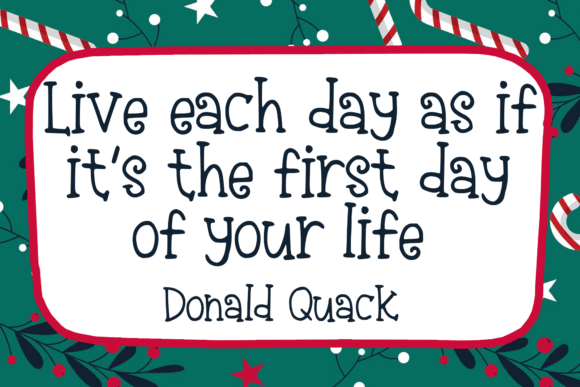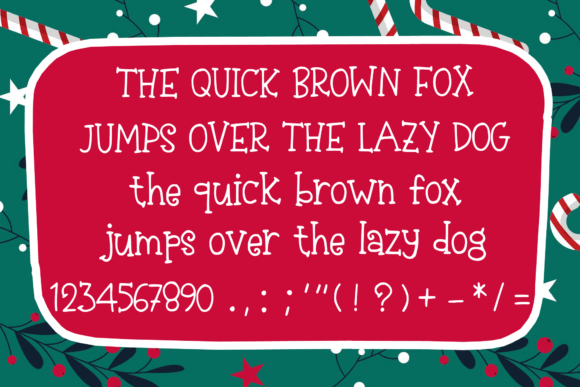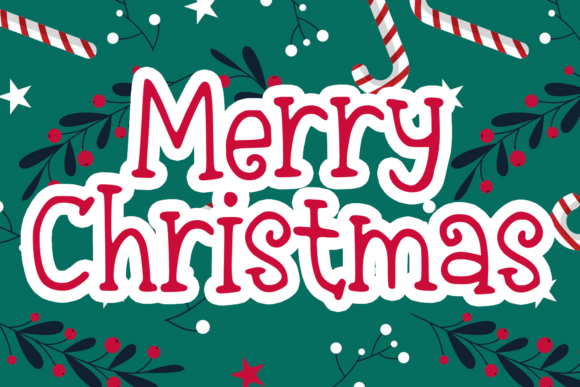
Christmas Sugar Font
Christmas Sugar typeface is the playful, handwritten font that infuses your projects with a festive spirit!
This versatile font is perfect for adding a touch of fun to any design theme, from Christmas to Easter, school projects, and beyond. Its captivating character elevates a vast array of projects, ensuring your designs stand out from the crowd.
Explore its potential in varied design elements like vibrant stickers, trendy t-shirt prints, stunning logo concepts, expressive magazine or book covers, whimsical comic book sketches, daily typing tasks, and so much more.
Christmas Sugar is a game-changer that adds a cool, unique touch to your creative sphere!